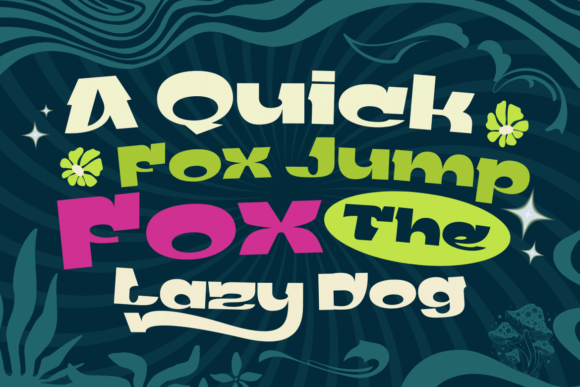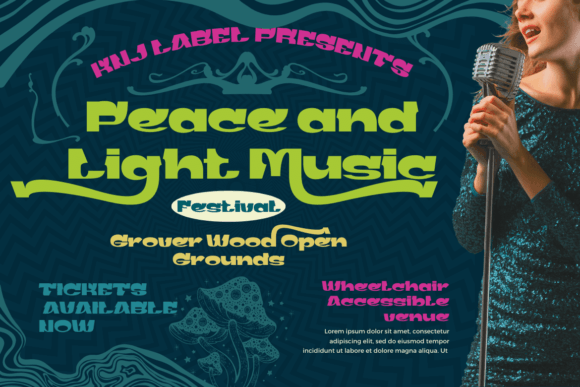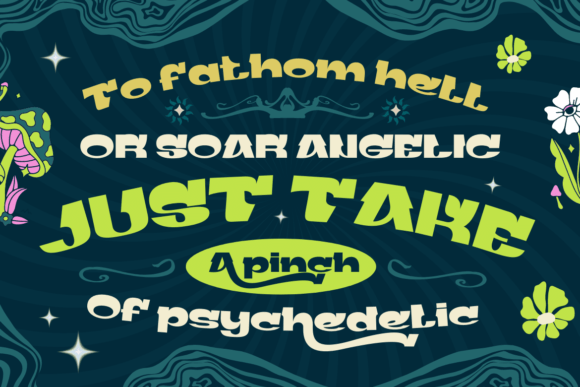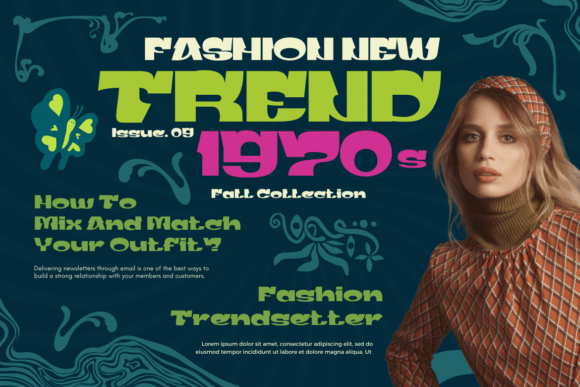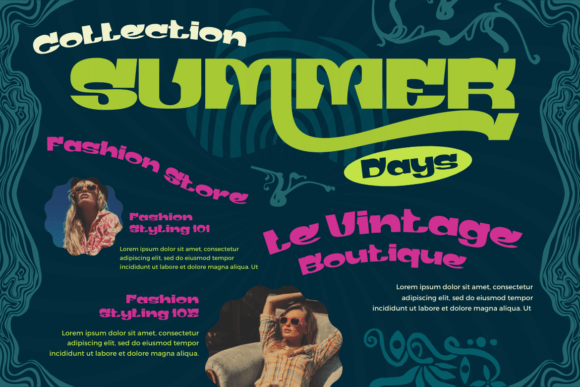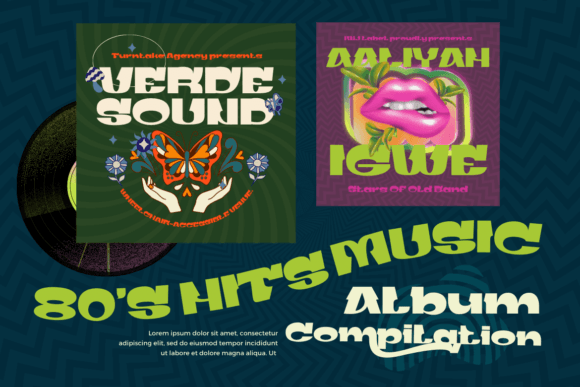
Introducing Gerig Font: The Ultimate Display Font for Creative Minds
Are you tired of using the same old fonts for your creative projects? Look no further! Gerig Font is here to revolutionize the way you approach typography. This unique, stylish, and fun display font is unlike most other fonts out there, and it’s about to become your new favorite.
What Makes Gerig Font So Special?
Gerig Font is masterfully designed to bring out the best in your creative ideas. Its distinctive style and flair make it perfect for a wide range of projects, from branding and advertising to crafting and DIY tutorials. Whether you’re a designer, crafter, or simply someone who loves to express themselves through creative projects, Gerig Font is the perfect tool to help you stand out from the crowd.
Key Features of Gerig Font
- Unique and Stylish: Gerig Font boasts a one-of-a-kind design that’s sure to turn heads. Its stylish and modern aesthetic makes it perfect for projects that require a touch of sophistication and elegance.
- Fun and Playful: Despite its stylish and modern look, Gerig Font still manages to be fun and playful. It’s perfect for projects that require a bit of whimsy and personality.
- Display Font: Gerig Font is specifically designed as a display font, making it perfect for headlines, titles, and other attention-grabbing elements.
- High Versatility: Gerig Font can be used for a wide range of projects, from digital designs to print materials, and even crafts and DIY tutorials.
How to Use Gerig Font in Your Projects
Gerig Font is incredibly easy to use, even for those who are new to design and typography. Here are a few ideas to get you started:
- Branding and Advertising: Use Gerig Font to create eye-catching logos, advertisements, and marketing materials that are sure to grab attention.
- Crafting and DIY Tutorials: Add a touch of personality to your crafting and DIY tutorials with Gerig Font. Use it to create fun and colorful titles, headings, and other design elements.
- Digital Designs: Gerig Font is perfect for digital designs, including social media graphics, blog posts, and website headers.
- Print Materials: Use Gerig Font to create stunning print materials, including brochures, flyers, and posters.
Tips and Tricks for Getting the Most Out of Gerig Font
Here are a few tips and tricks to help you get the most out of Gerig Font:
- Experiment with Different Sizes: Gerig Font looks great in a variety of sizes, from small and subtle to large and bold. Experiment with different sizes to find the one that works best for your project.
- Play with Color: Gerig Font looks great in a wide range of colors. Try experimenting with different colors and color combinations to find the one that works best for your project.
- Mix and Match: Don’t be afraid to mix and match Gerig Font with other fonts and design elements. This can help create a unique and eye-catching design that’s all your own.
Gerig Font is a game-changer for designers, crafters, and anyone who loves to express themselves through creative projects. Its unique, stylish, and fun design makes it perfect for a wide range of projects, from branding and advertising to crafting and DIY tutorials. With its high versatility and ease of use, Gerig Font is sure to become a true favorite in your design toolkit.